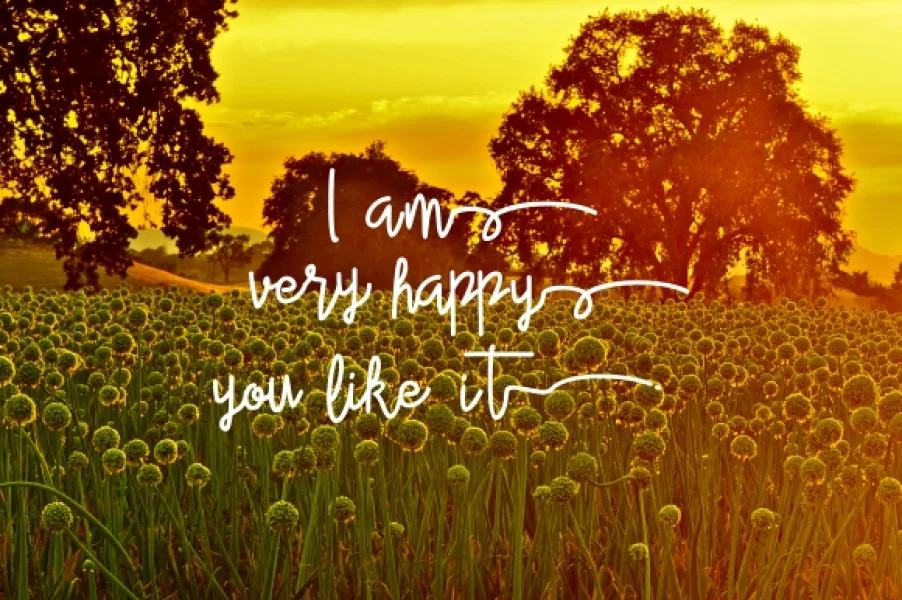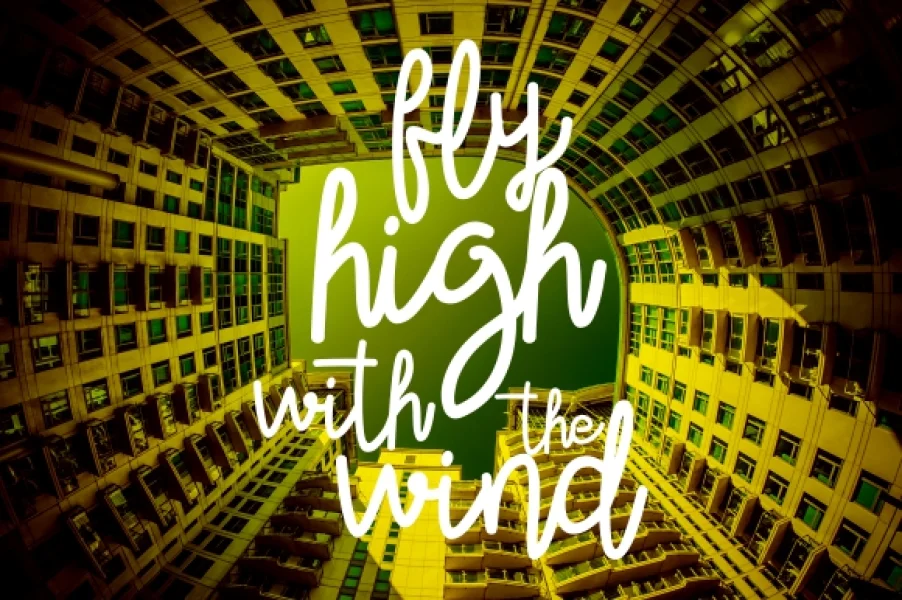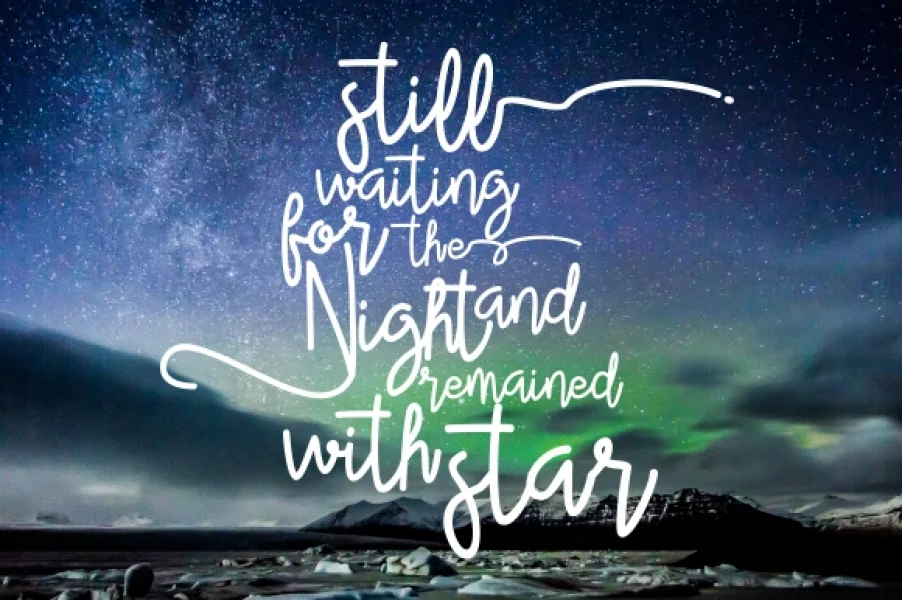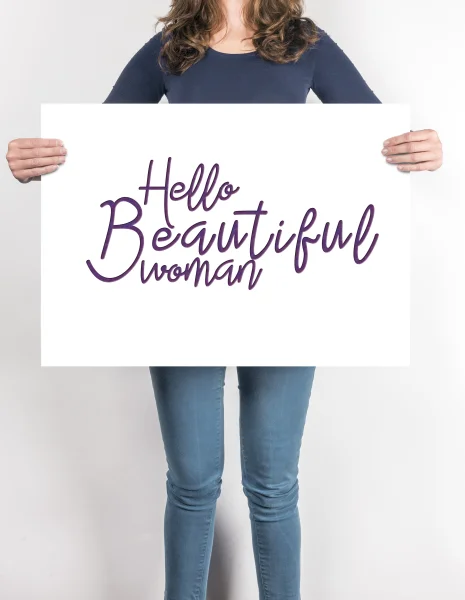
"Alleana Script" is a smooth hand calligraphy, modern calligraphy wavy, which was created to meet the needs of your next design project. Love Moment, Can used for various purposes. such as the title, logo, correspondence, wedding invitations, letterhead, signage, labels, newsletters, posters, badges, t-shirt, etc.